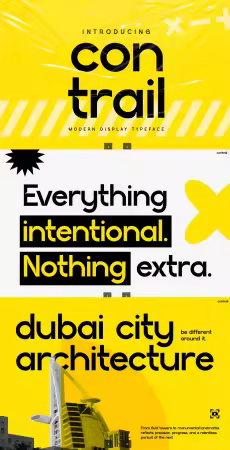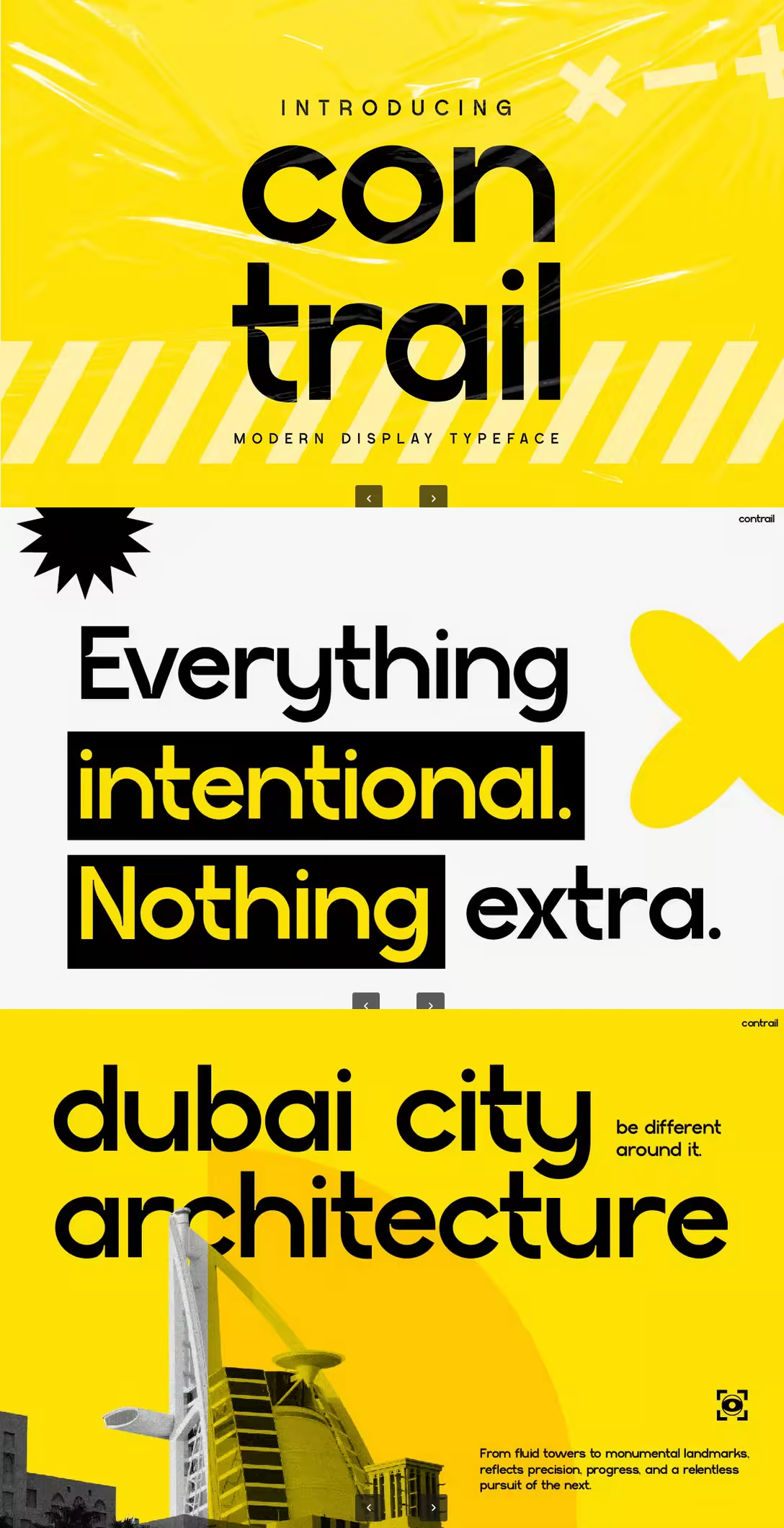
CONTRAIL – Modern Editorial Display Font
CONTRAIL is a modern geometric display typeface built for high-impact branding and editorial design, delivering clarity and confidence through bold proportions, low-contrast strokes, and controlled curves. Its visual language feels assertive, contemporary, and intentional—making it ideal for designers who need structure without stiffness.
The vibe is bold, modern, and editorial-driven, aligning naturally with fashion magazines, creative studios, tech startups, and social-first brands. The letterforms are geometric and clean, with confident terminals and balanced spacing that hold attention across both digital and print layouts. CONTRAIL performs especially well in branding systems, posters, magazine covers, social media graphics, packaging, and campaign headlines.
Whether you are building a fashion layout, launching a startup identity, or crafting bold social content, CONTRAIL connects modern structure with expressive impact—supporting clear messaging, confident storytelling, and strong brand recall.
Key Features : Bold Editorial Presence
Strong geometric construction for impactful headlines
Balanced proportions that feel controlled, not rigid
Modern & Versatile Character
Works across fashion, architecture, lifestyle, and tech visuals
Consistent rhythm for clean grids and modular layouts
Design-Forward Usability
Optimized for posters, magazine covers, and digital branding
Clear shapes that maintain legibility at large display sizes
Contemporary Visual Control
Low-contrast strokes for a stable, confident look
Designed to support minimal, high-concept design systems
Basic Latin A–Z and a–z
Numbers
Punctuation